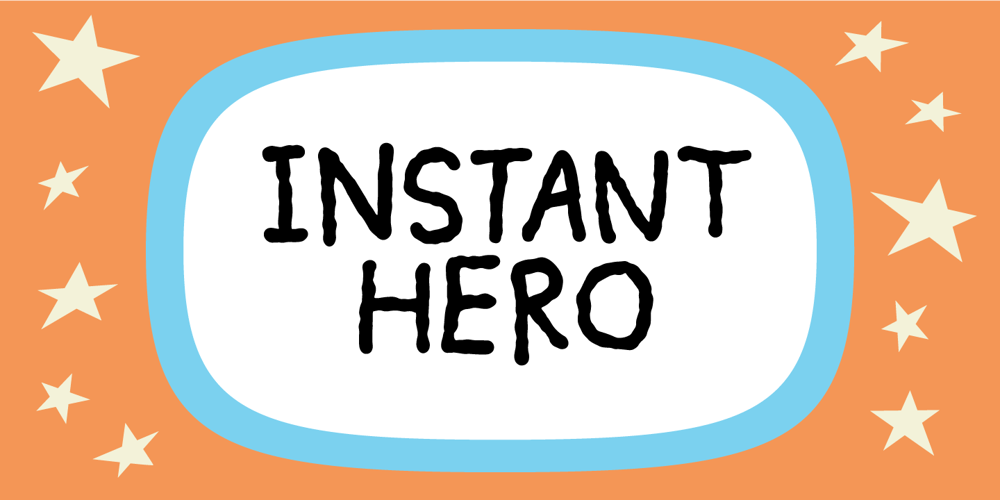
Instant Hero Font Family was designed by Jakob Fischer and published by PizzaDude.dk. Instant Hero contains 2 styles and family package options. A scribbled kids handwriting kinda font without overdoing it, which makes it super legible, even at very small sizes.I have added 5 different versions of each letter, and they automatically changes as you type!